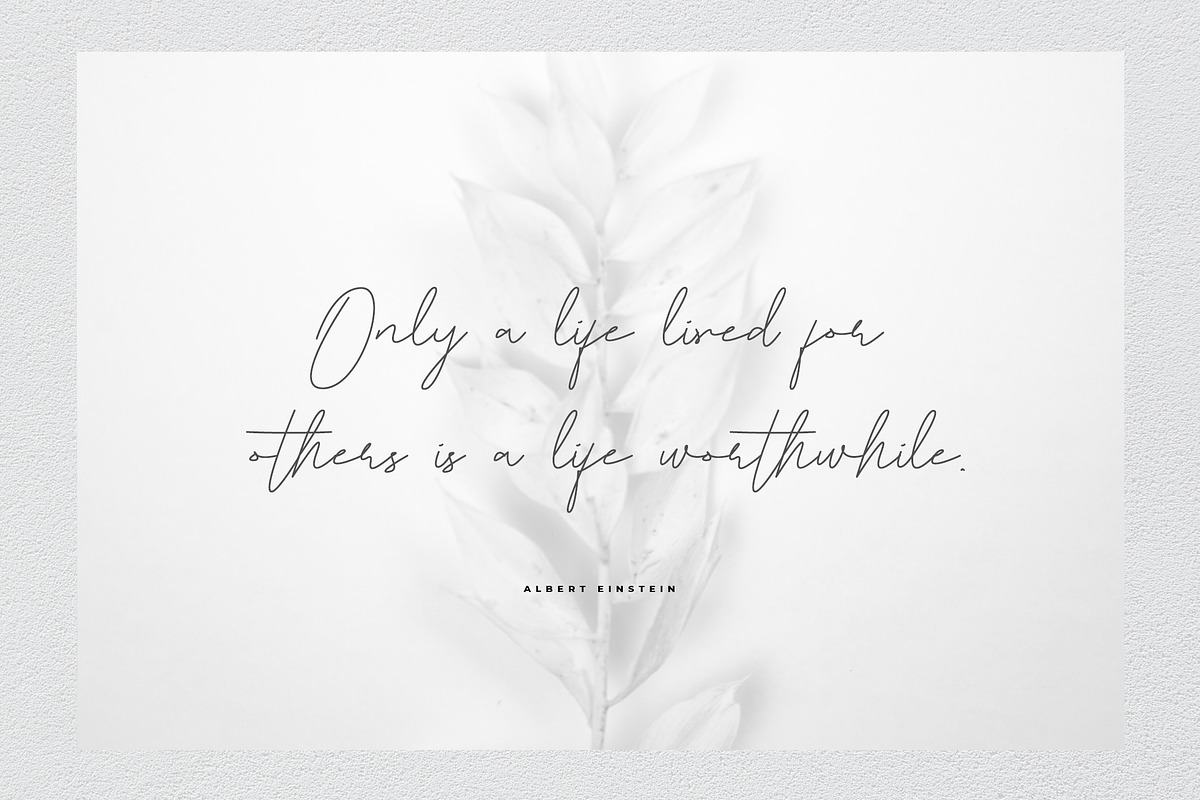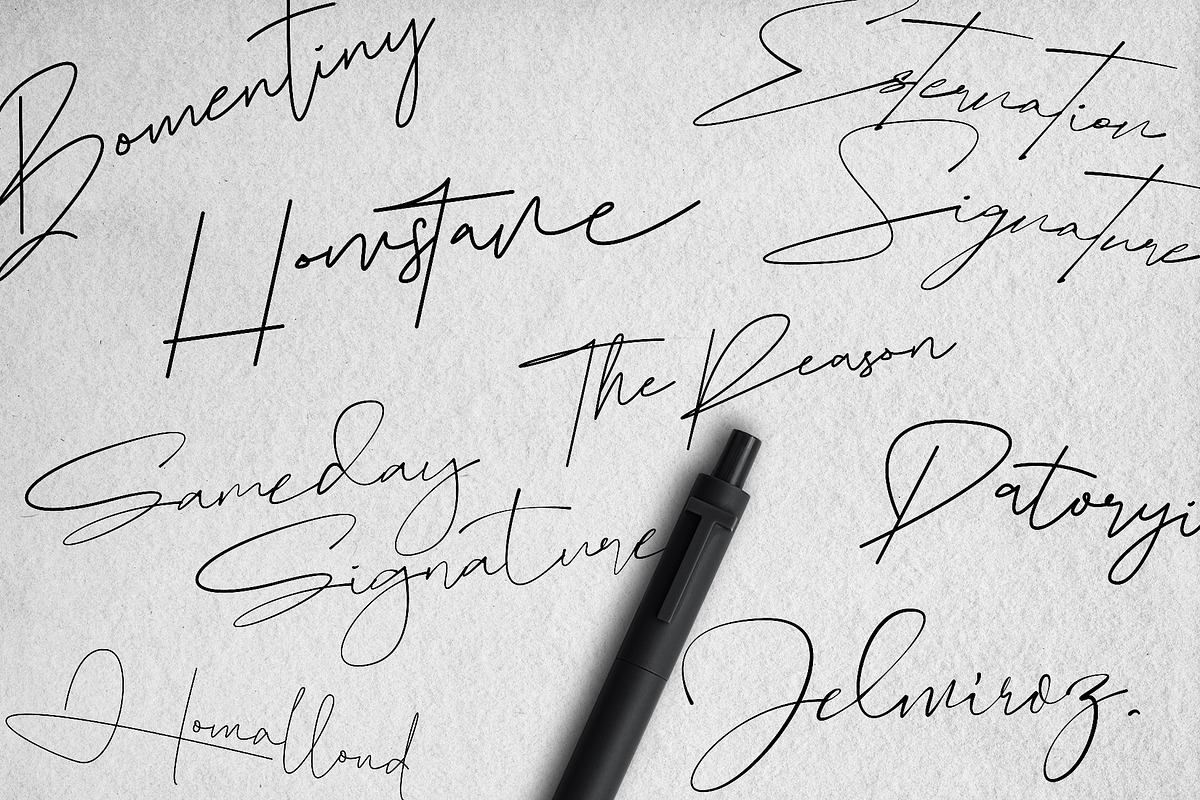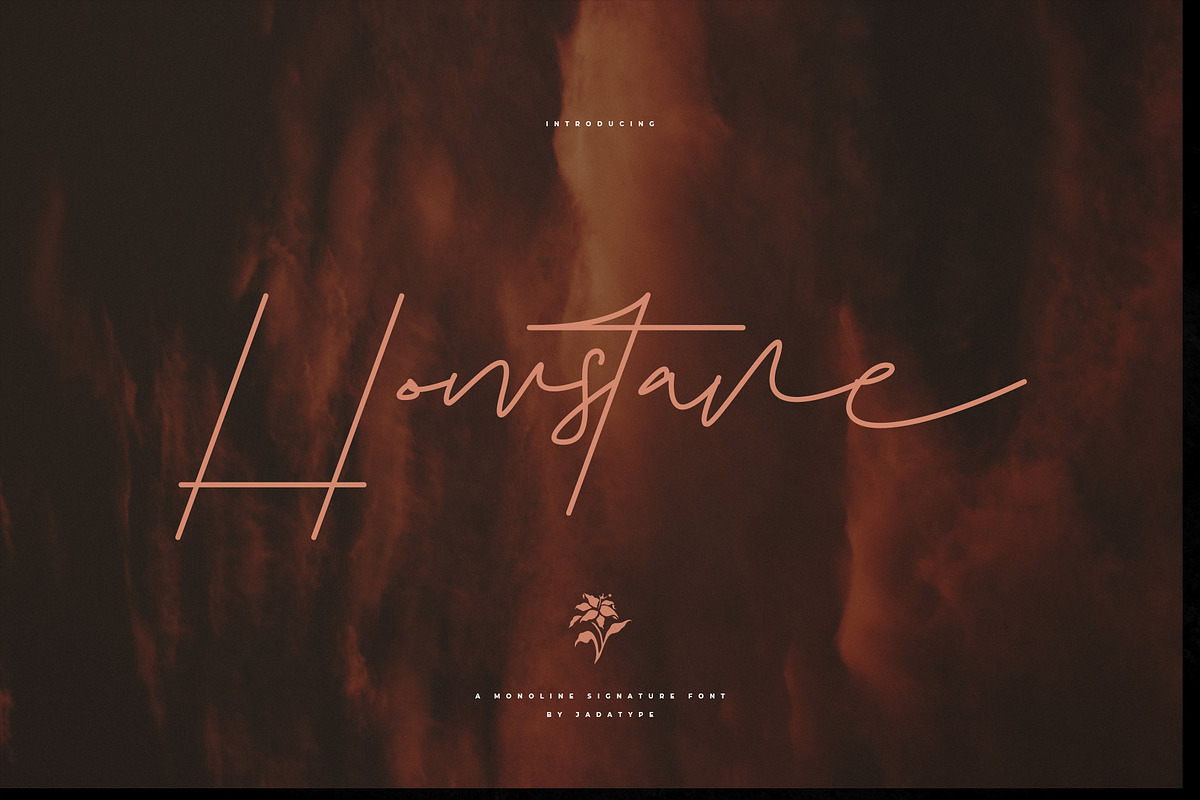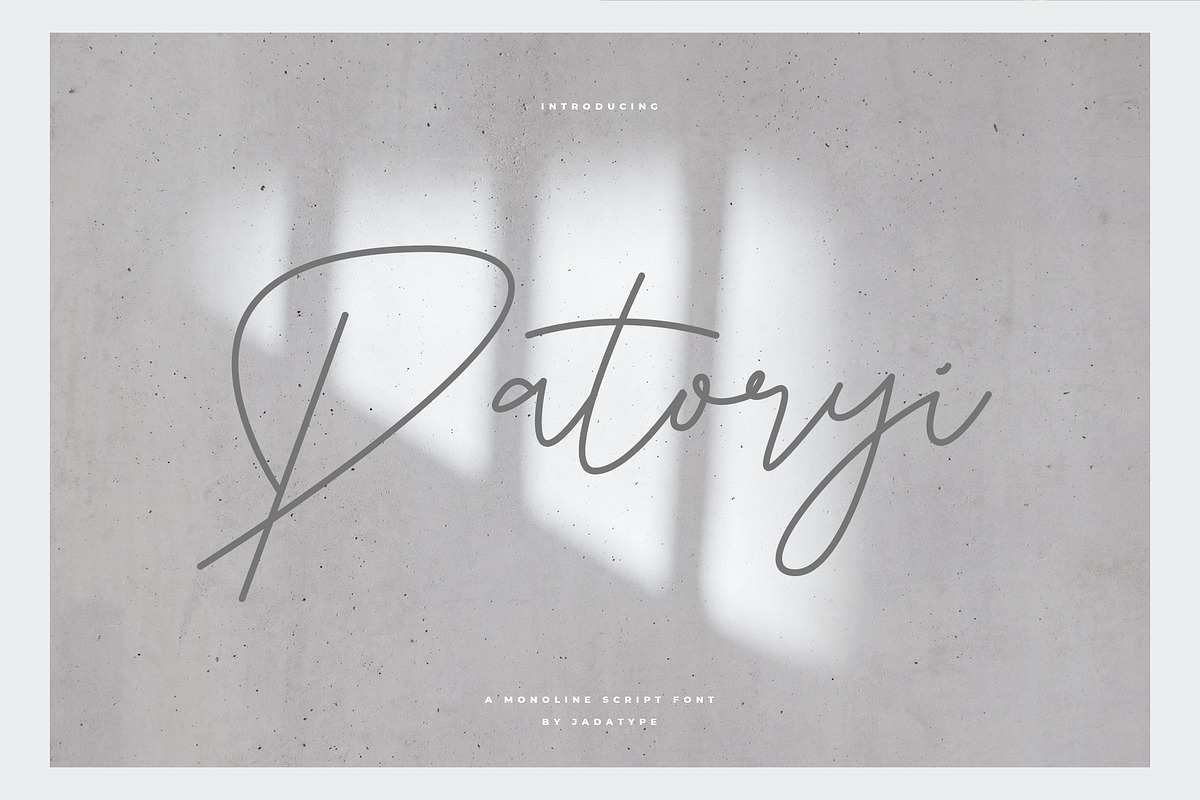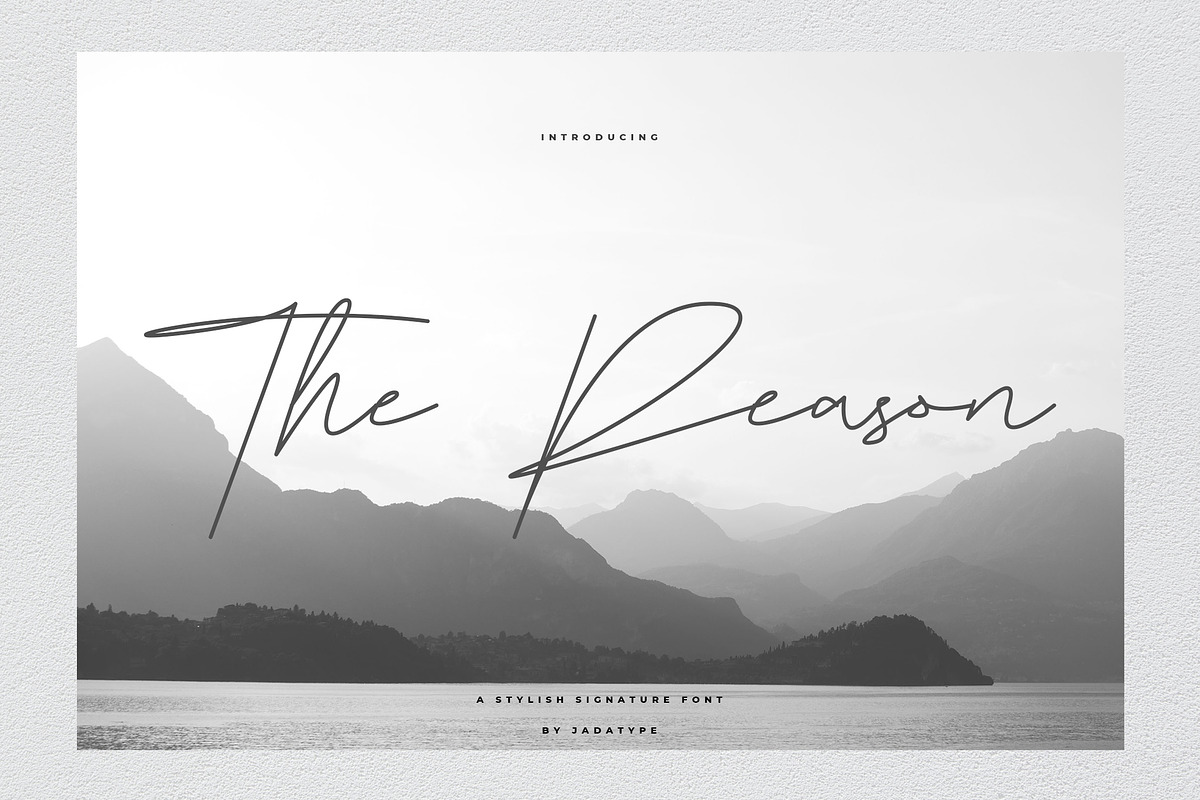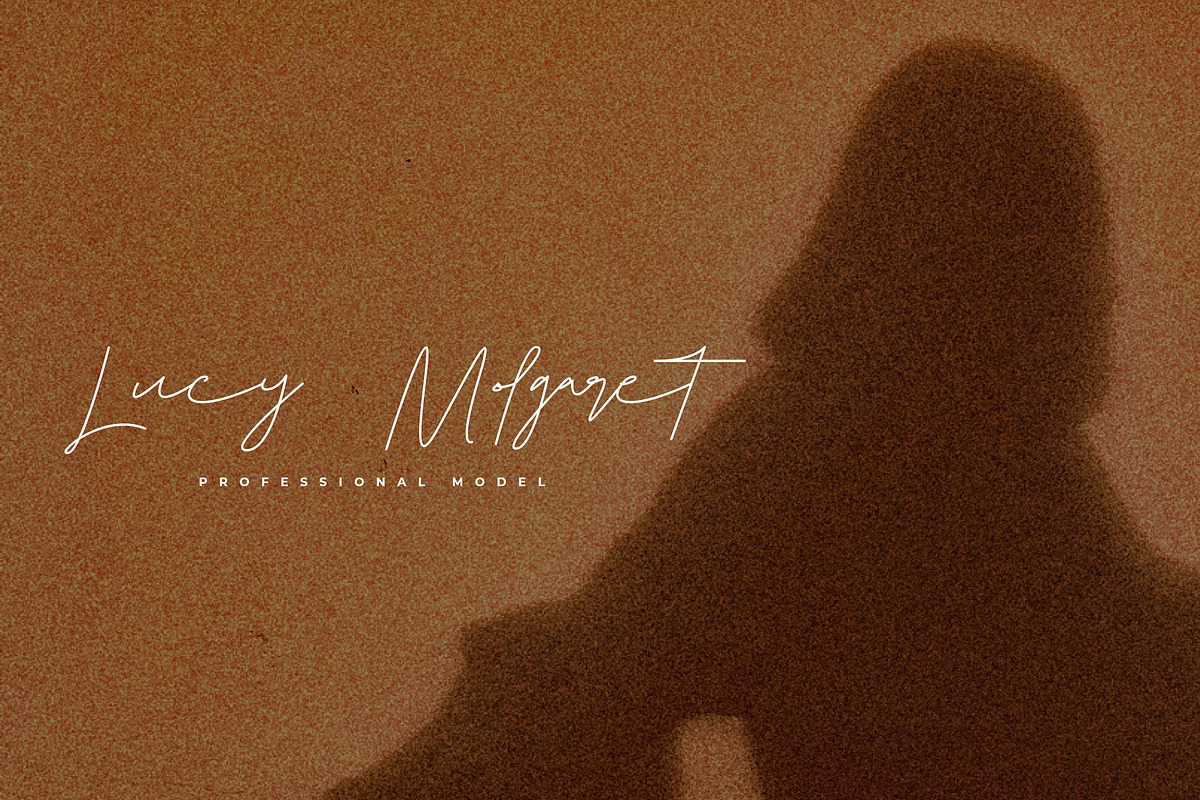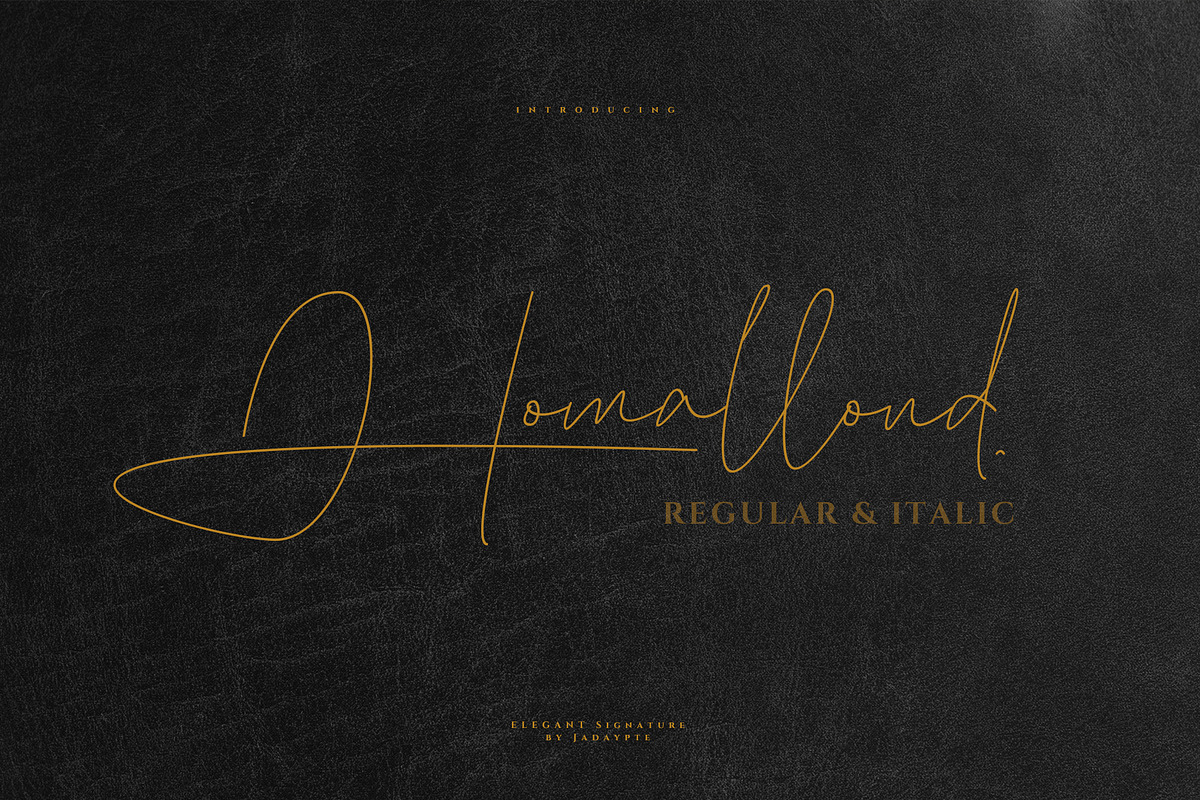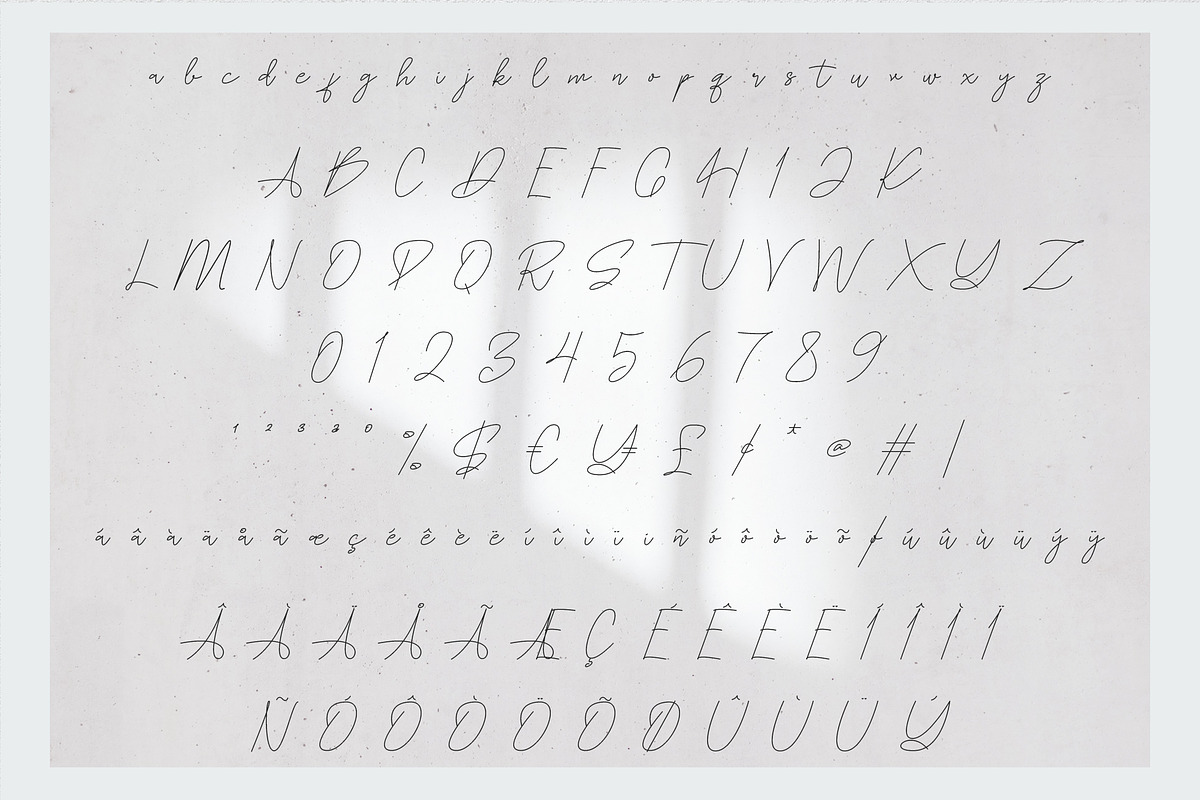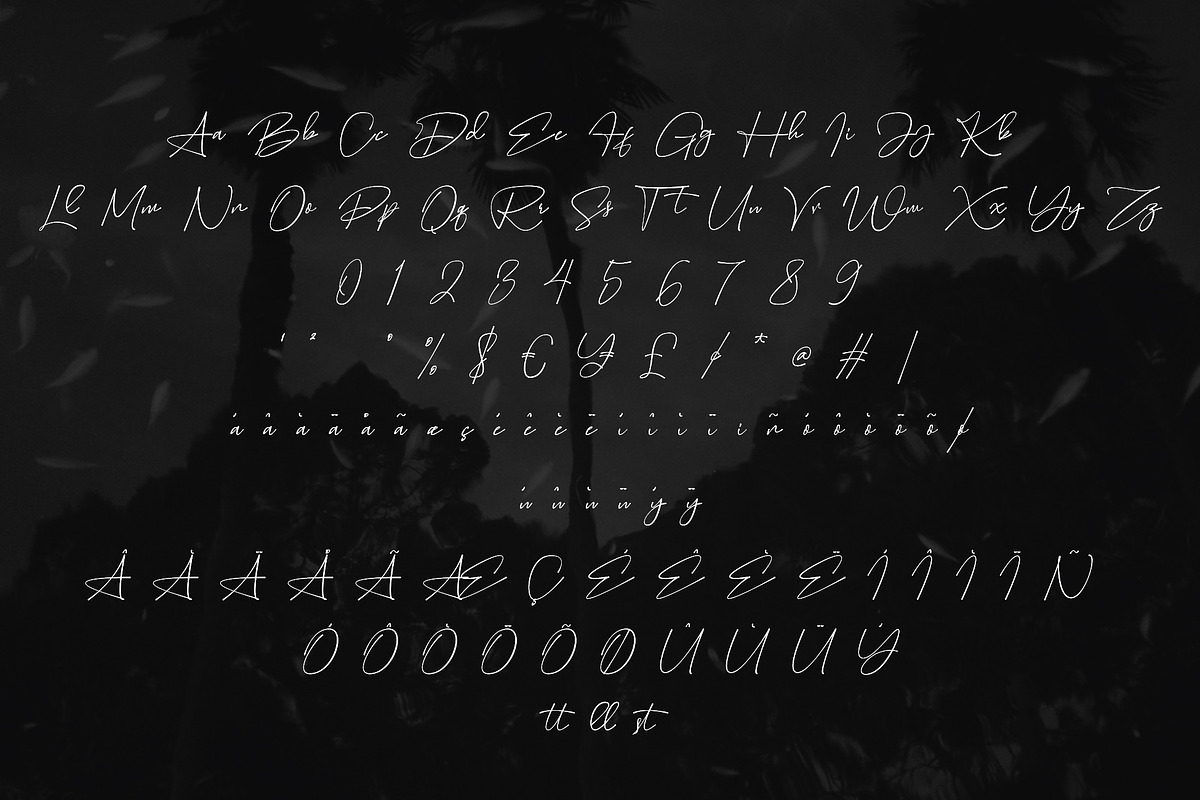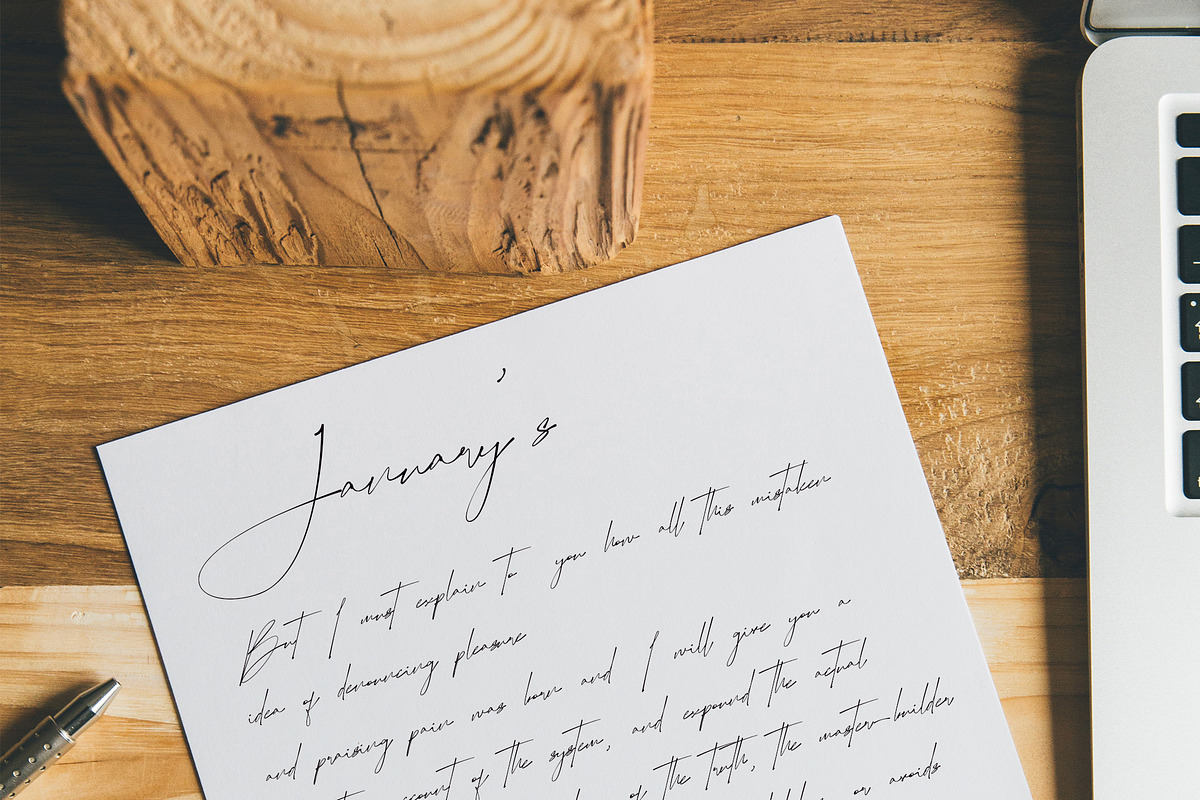
Jadatype Fonts Pack | Script Edition
Jadatype's first fonts pack comes with script edition! which is suitable for your projects that require an elegant and stylish impression. can be juxtaposed with wedding-themed, branding, quotes, websites, and social media needs.
- Bomentiny
- Easternation Signature
- Homallond
- Homstane
- Jelmiroz
- Patoryi
- Sameday Signature
- The Reason